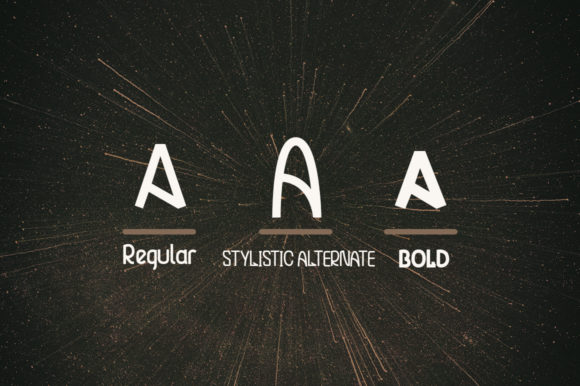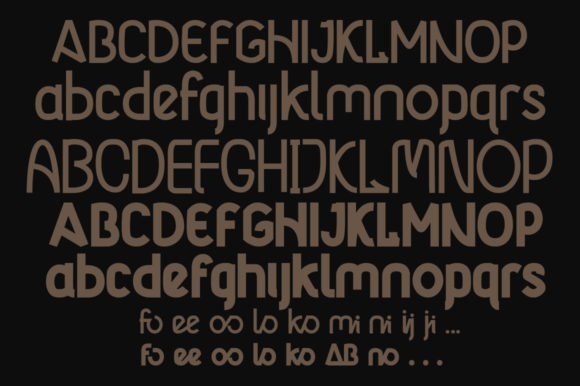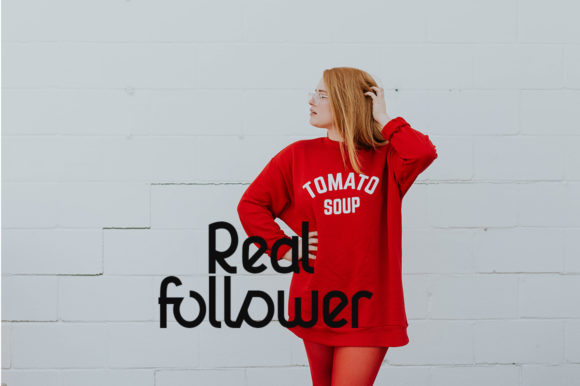
Introduction to Proudly Font
Proudly is a simple, yet playful display font that features smooth curves and delivers a modern font experience.
Get inspired by its unique approach to lettering .